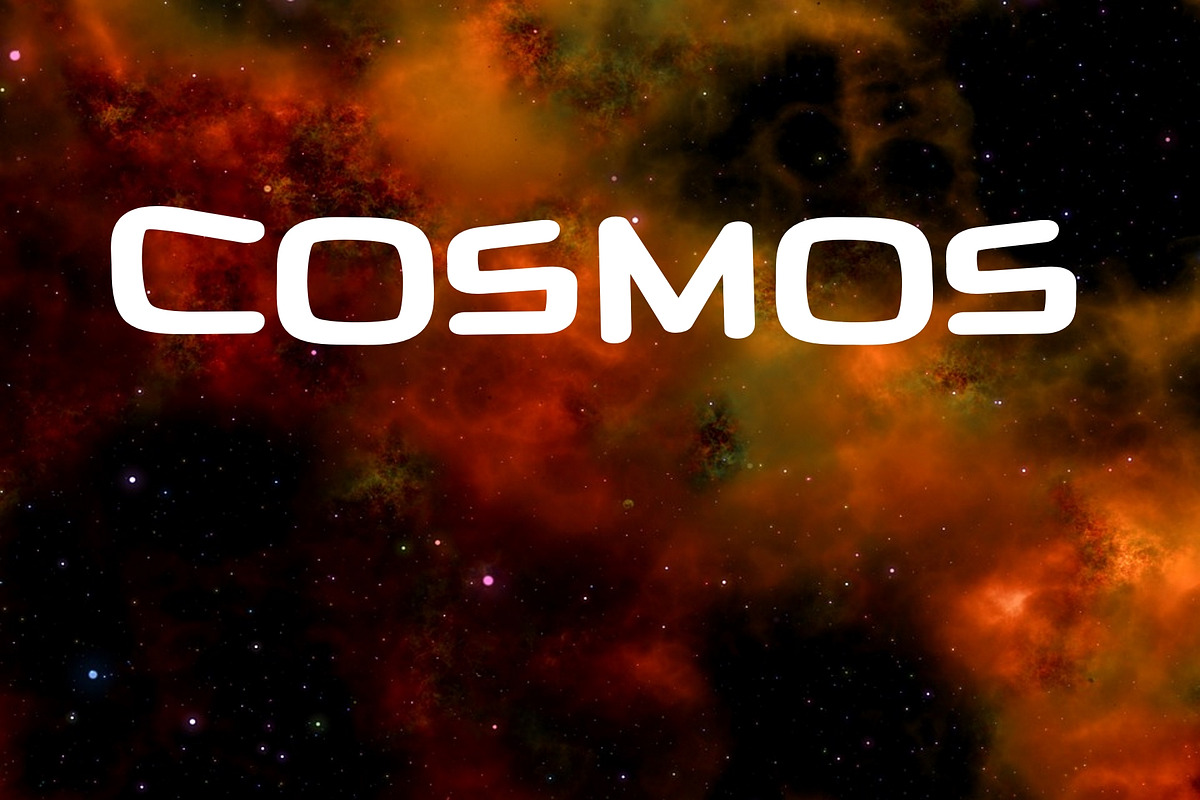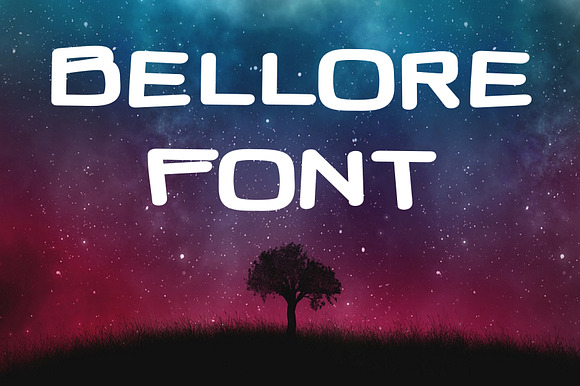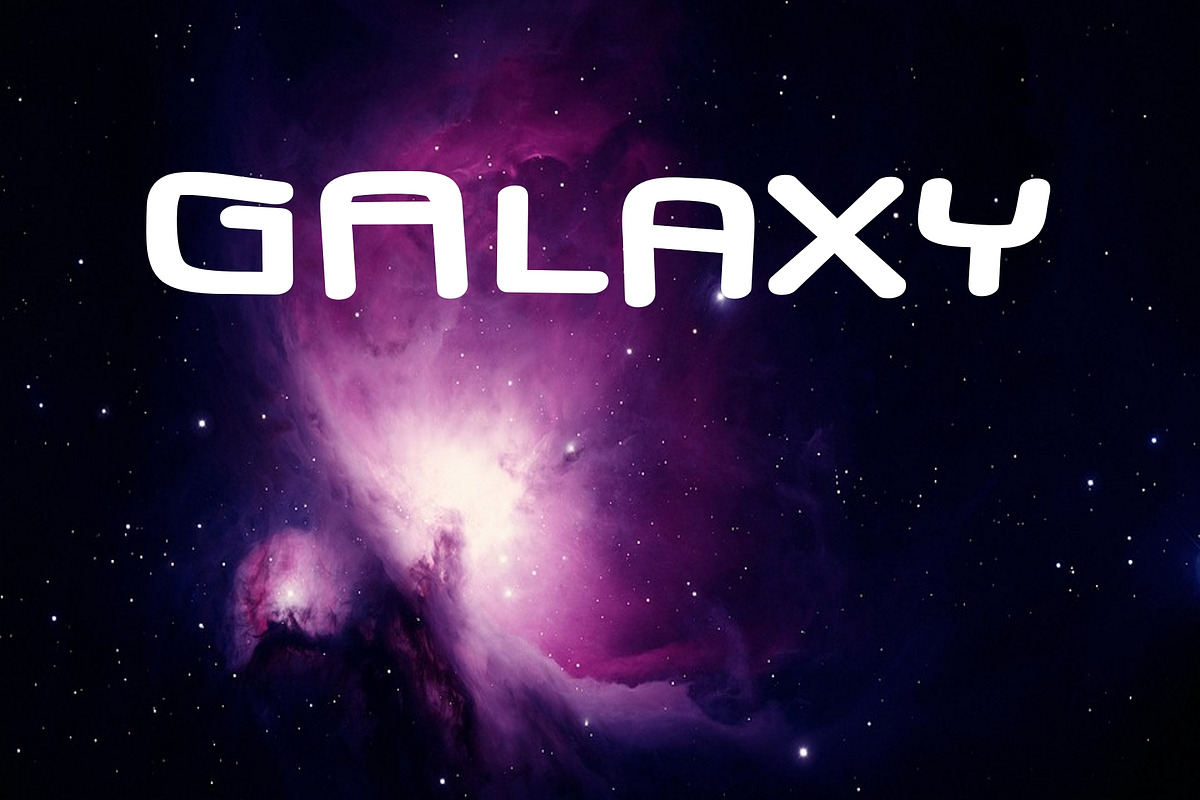
Bellore Font
Bellore Font by ultimatefontcreator is a font selected for branding, posters, packaging, typography.
Why Bellore Font is worth a look
Bellore Font by Ultimate Font Store fits naturally into Branding, posters, packaging, typography.